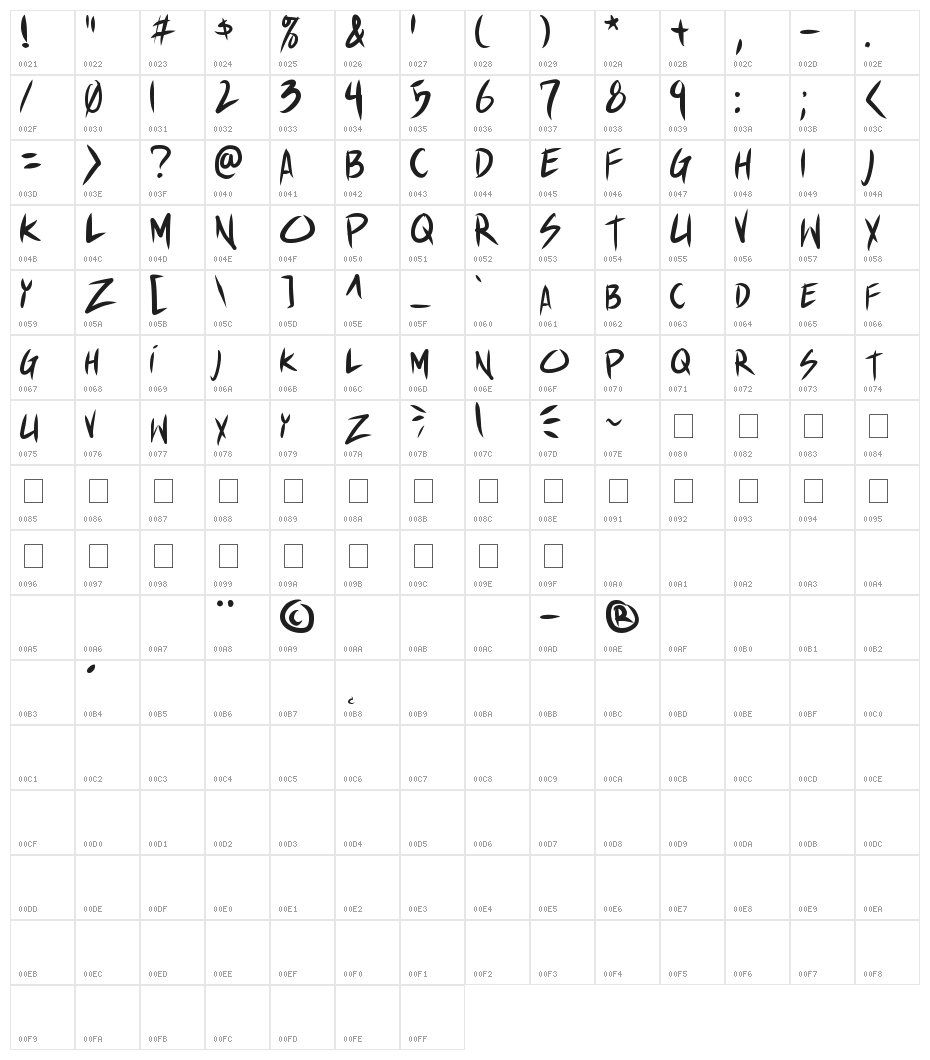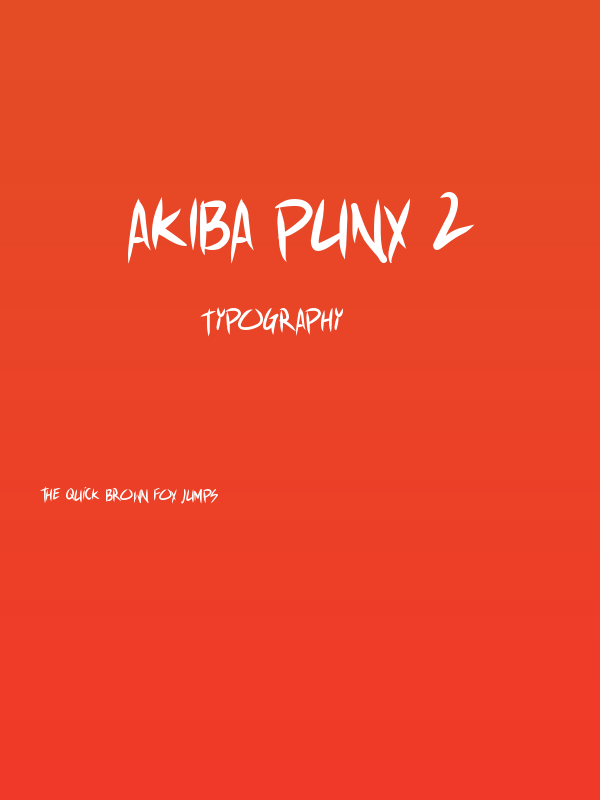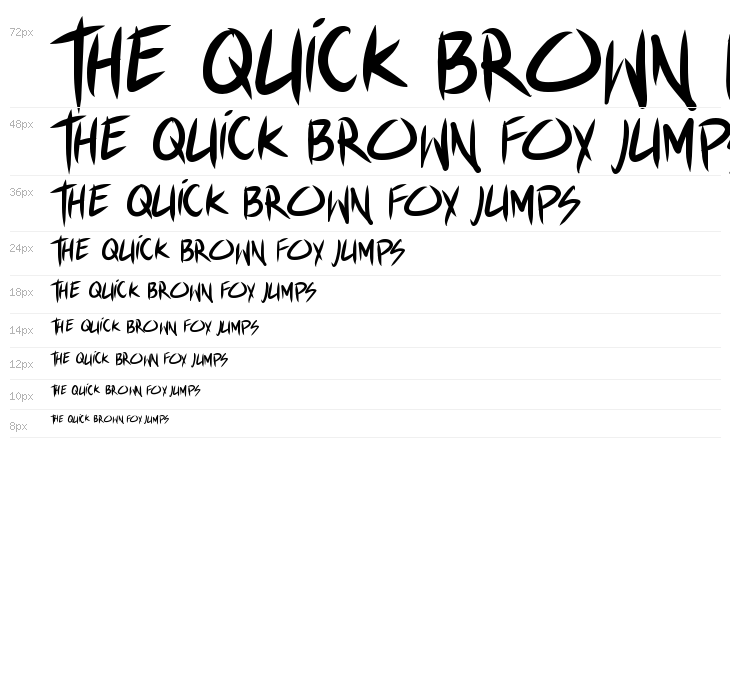
Akiba Punx 2 Font
Akiba Punx 2 Description
This font features a bold and dynamic style with sharp, angular strokes that convey a sense of energy and movement. The letters are crafted with a graffiti-like flair, giving them a rebellious and edgy appearance. The uppercase and lowercase characters maintain a consistent style, with exaggerated curves and pointed edges. Numbers and special characters follow the same aesthetic, ensuring a cohesive look across all elements. The overall design is striking and attention-grabbing, making it ideal for projects that require a bold statement.
| Overall Style | Modern, Edgy |
| Proposed Projects | Ideal for street art designs, music album covers, posters, and branding for edgy or alternative brands. |